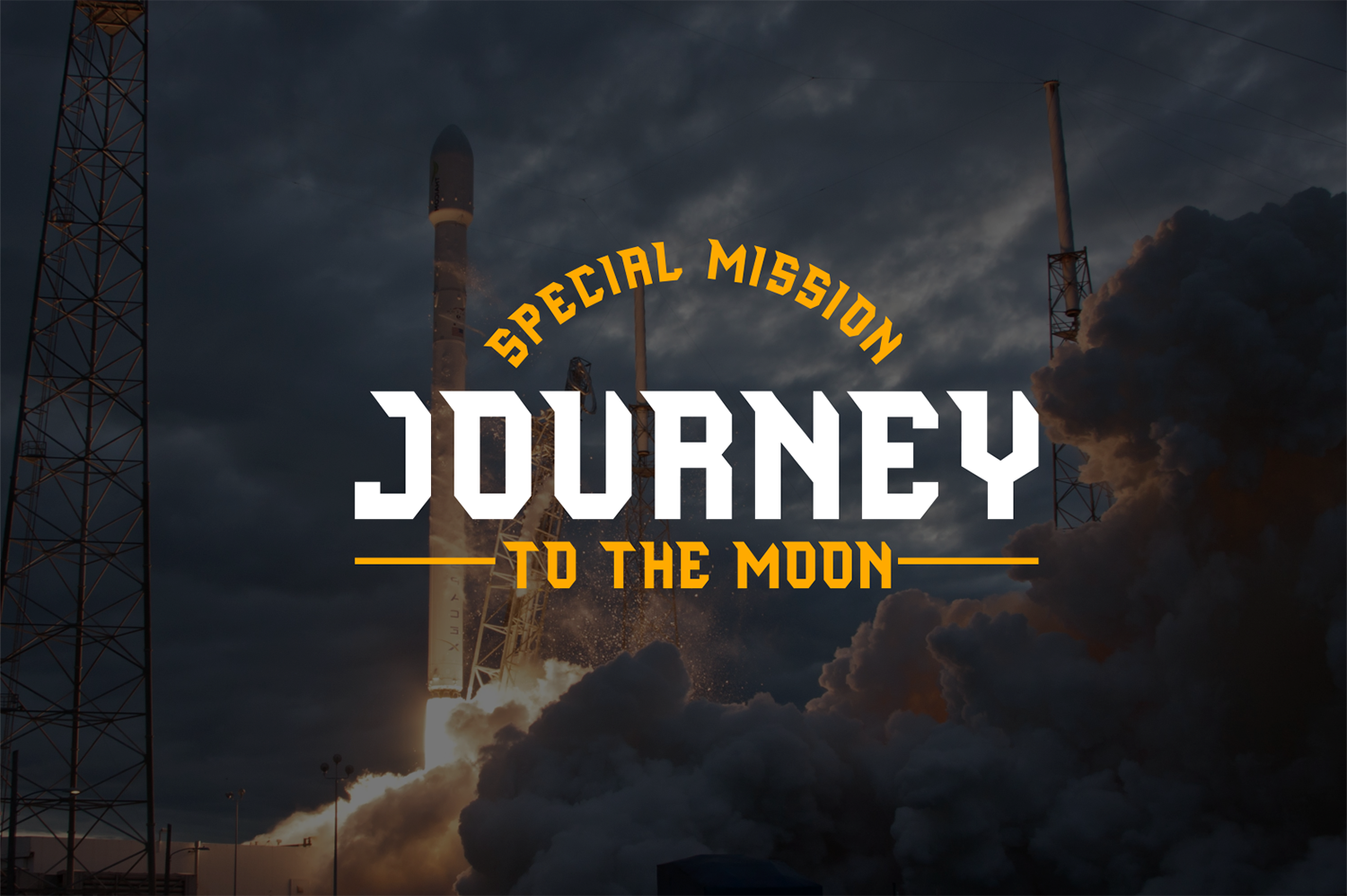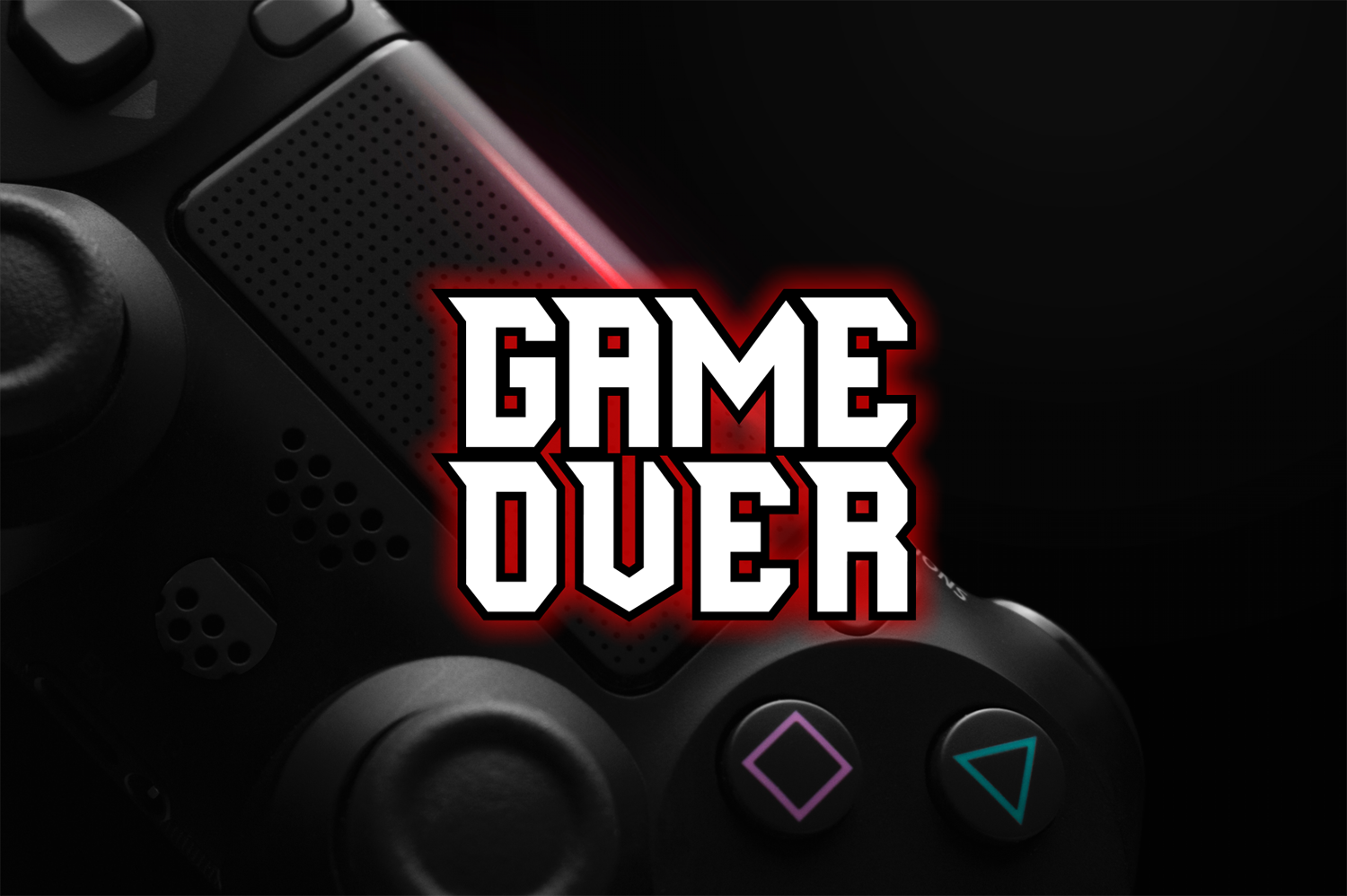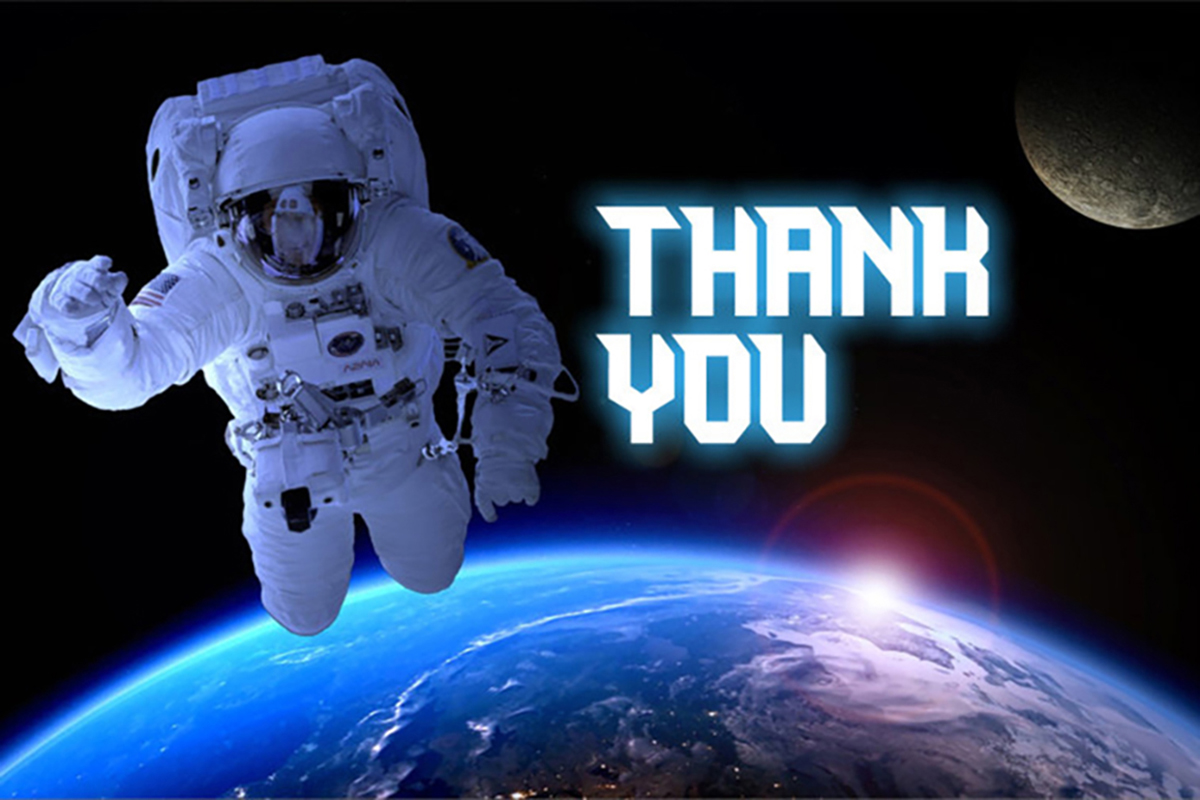
Big Space Free Font
Big Space Free Font is a font that is made in a sporty, sci-fi, modern, bold, cutting edge and futuristic style. It is suitable for titles, logos, quotes, posters, jersey numbers, etc. This free typeface was designed by the talented Nurf Designs. If you like it don’t forget to check out the full version.